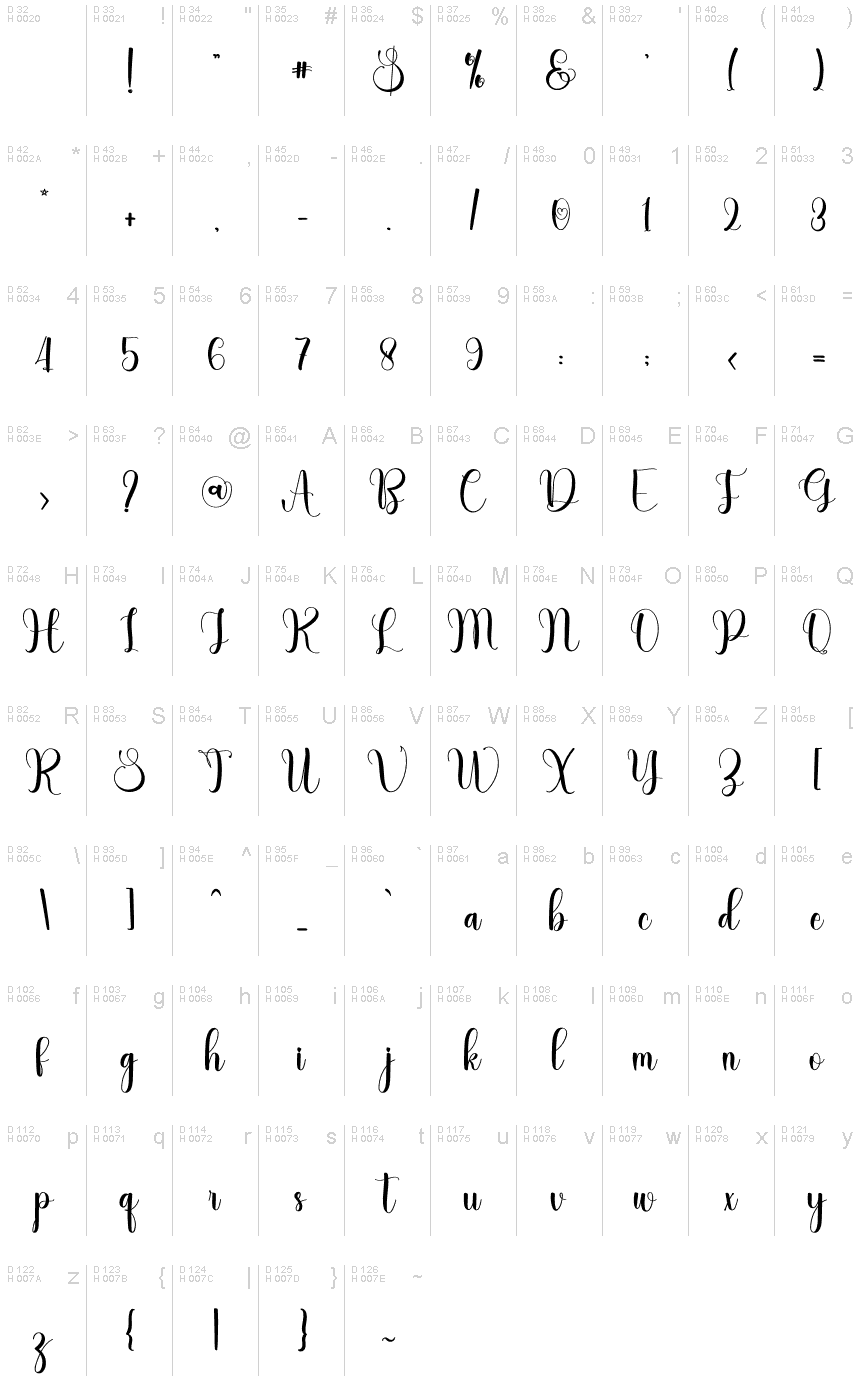
Breaklive
Breaklive, designed by Inermedia Studio, is a captivating calligraphy font that exudes elegance and creativity. Its semi-light weight adds a touch of delicacy to any project, making it suitable for various purposes. This enchanting font is perfect for wedding invitations, artistic branding materials, and inspiring quote designs. With its graceful strokes and flowing curves, Breaklive brings sophistication to logos, packaging designs, and social media graphics. Whether you're creating a romantic greeting card or designing a fashion blog header, this font will effortlessly elevate your projects with its timeless charm.